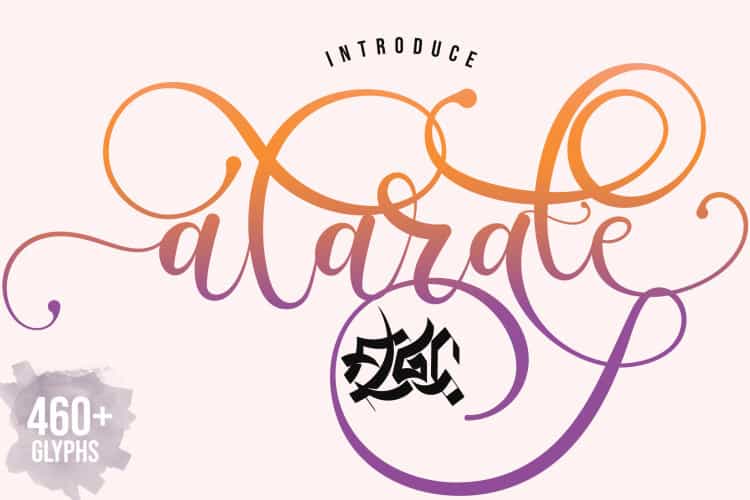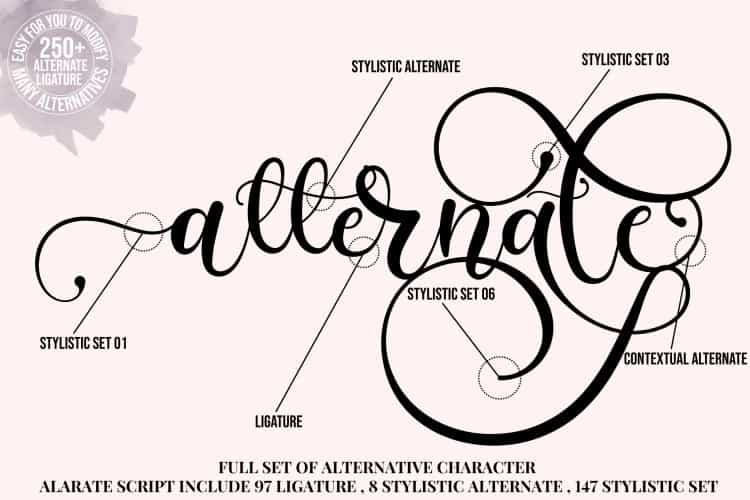
Introducing Alarate Font. It is a wonderful script with a feminimst calligraphy style, decorative characters. This font script has a lot of alternative characters which support ligature, the contextual alternate, the stylistic alternate and the stylistic set.